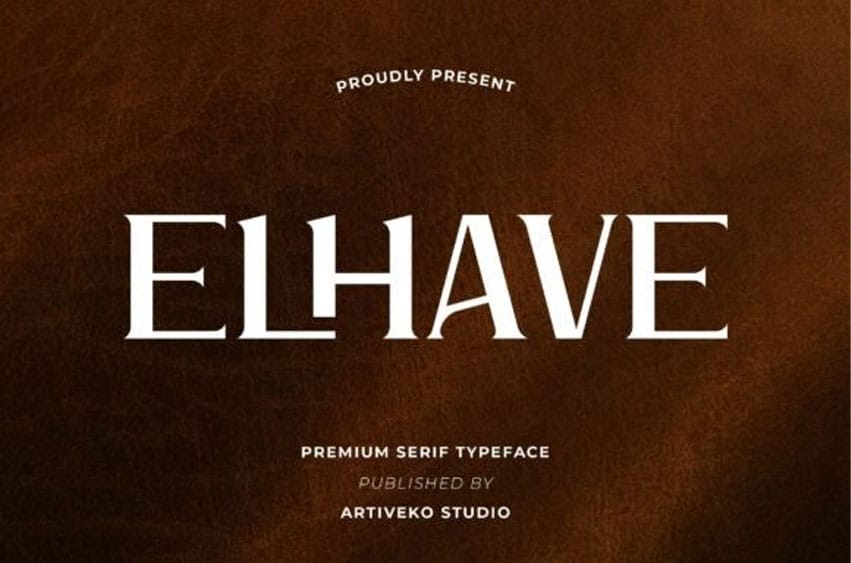
Elhave Font is a refined luxury serif font designed to bring sophistication and exclusivity to any project.
With its high-contrast strokes, graceful curves, and polished letterforms, Elhave captures the essence of premium aesthetics—perfect for branding, editorial design, packaging, invitations, fashion campaigns, and upscale digital content.